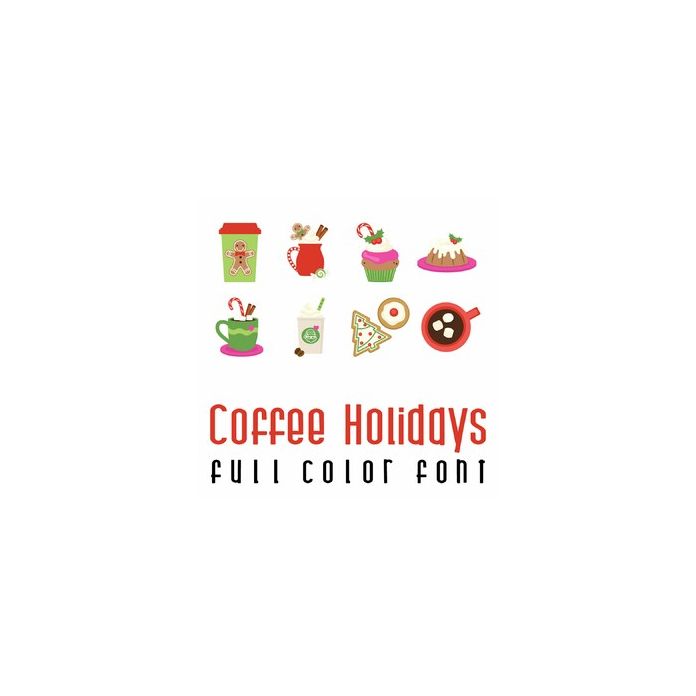
This adorable full color doodlebat font features has 26 elements of a coffee shop bakery ready for the holidays. Use this doodlebat to create fun gifts, cards, crafts, decor, planner stickers, scrap book pages and more!. Perfect for cards, crafts, gifts, decor, scrap book pages, planner stickers and more!